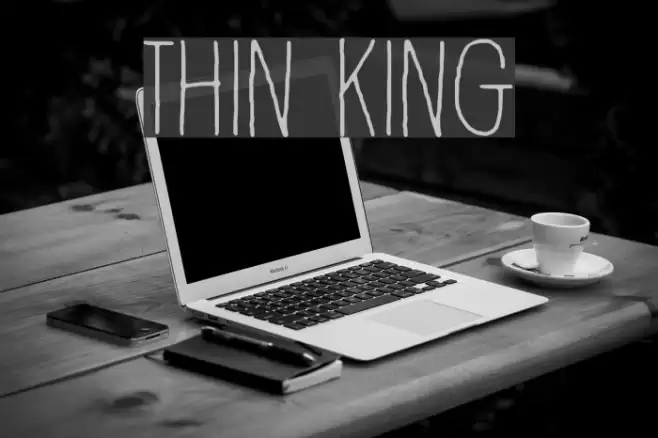
Thin king Font
Thin king Description
This font features a hand-drawn, organic style with thin, elongated strokes that give it a casual and approachable feel. The characters are slightly irregular, adding a touch of whimsy and personality. The uppercase and lowercase letters maintain a consistent height, while the numerals and special characters complement the overall aesthetic. The font's unique charm makes it suitable for creative and informal projects, where a personal touch is desired.
A thin, hand-drawn font with an organic and whimsical style from Uncategorized fonts.
- Proposed Projects: Ideal for greeting cards, personal branding, children's books, and creative posters.
- Weight: Light
- Overall Style: Casual and Creative
- Use Case: Logos, Invitations, Artistic Projects